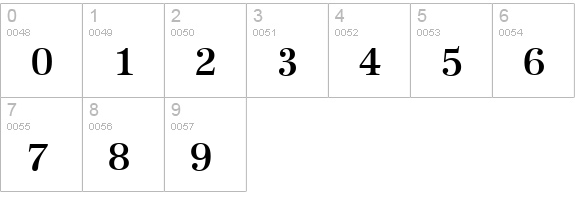
AntiquaStd-Medium-Regular is a balanced, medium-weight variant in the AntiquaStd typeface family \xE2\x80\x94 well suited to sub-headlines, navigation, and balanced editorial work.
AntiquaStd-Medium-Regular is a classic and timeless font that exudes elegance and sophistication. Its medium weight strikes the perfect balance between readability and style, making it suitable for a wide range of design projects. With its refined serifs and clean lines, this font adds a touch of sophistication to any text. The best part? AntiquaStd-Medium-Regular is available for free download at FontsMarket.com. Whether you're working on a professional project or a personal design, this versatile font is sure to elevate your work and leave a lasting impression. Don't miss out on the opportunity to enhance your designs with this beautiful and freely accessible font.